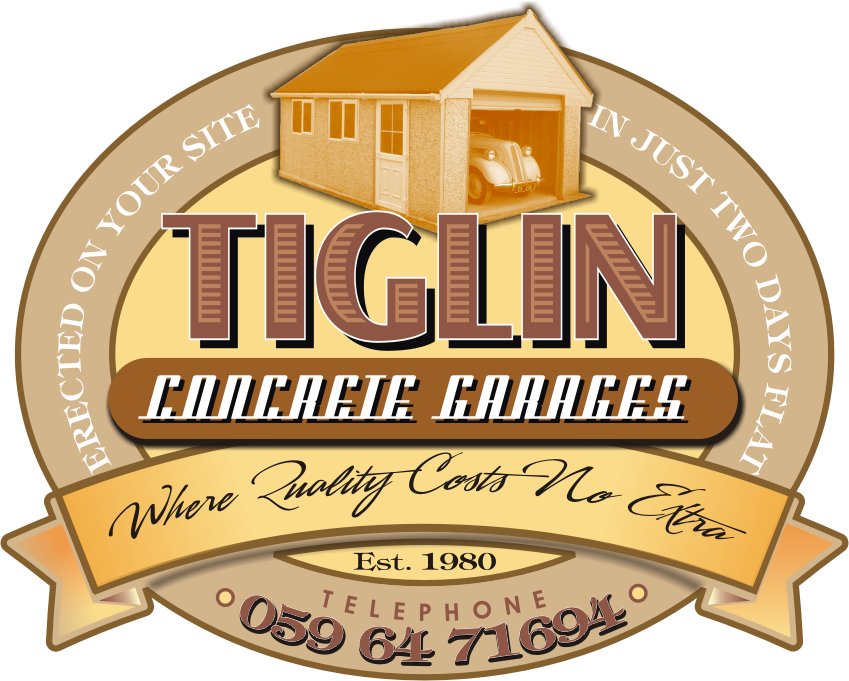
• Retro style font used for car name badges
I’m looking for a font that looks like the chrome name badges you used to get on cars years ago, they were usually all linked by a top or bottom bar. Something a little thicker and stylised than the one below ….if you have any ideas
I did try 23 pages at Dafont and have a couple of possibles (as below).
and look for American Dreams, I used one of the retro fonts last week in creating a sticker to go on to a cream 1940’s ford which is peeping out of the garage in the pic
that’s the kind of style l was looking for, maybe something more loopy (<(
There are a few free ones out there.
Two that come to mind are Airstream and Air Conditioning.
They might even be the same font.
Forget Airstream…it’s not connected.
I came across Air Conditioner while searching Dafont. I thought that there would be loads but they are difficult enough to find.
It’s "Cars" the movie that has created this request and l now have to do one for my son, so it has to look authentic.
Deftone Stylus…..maybe